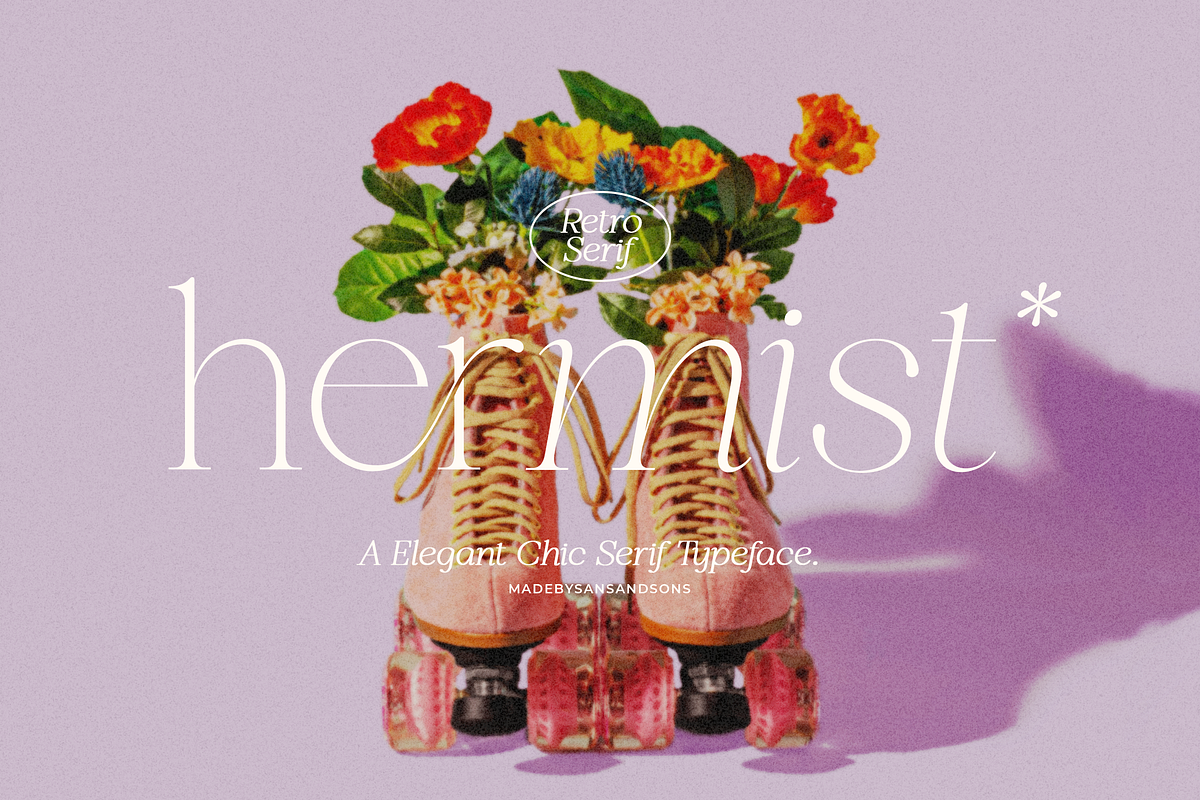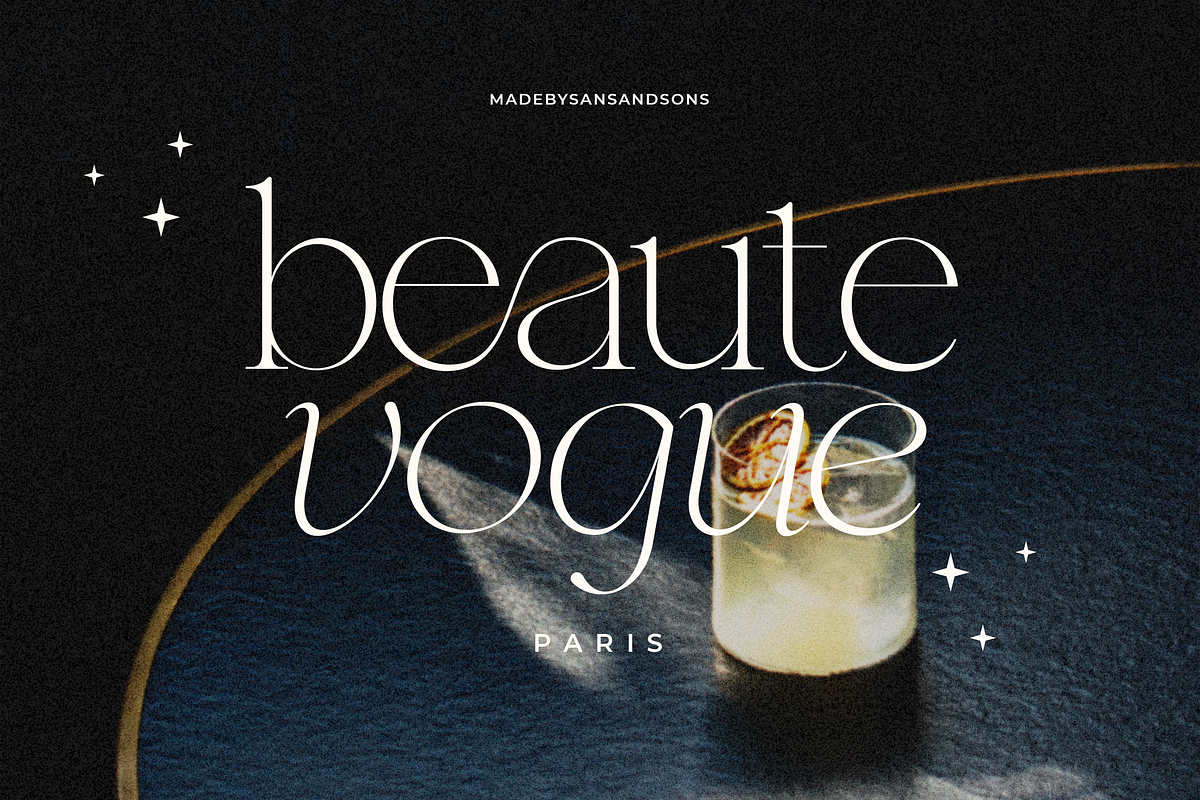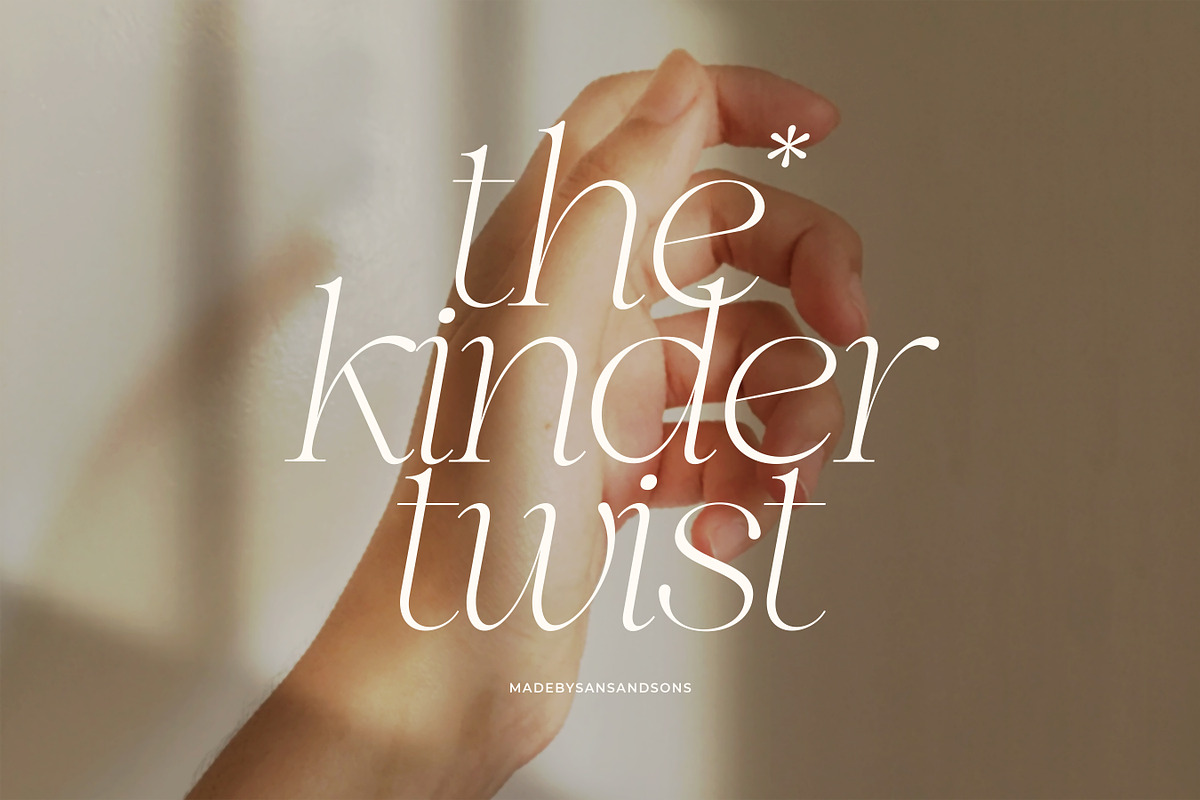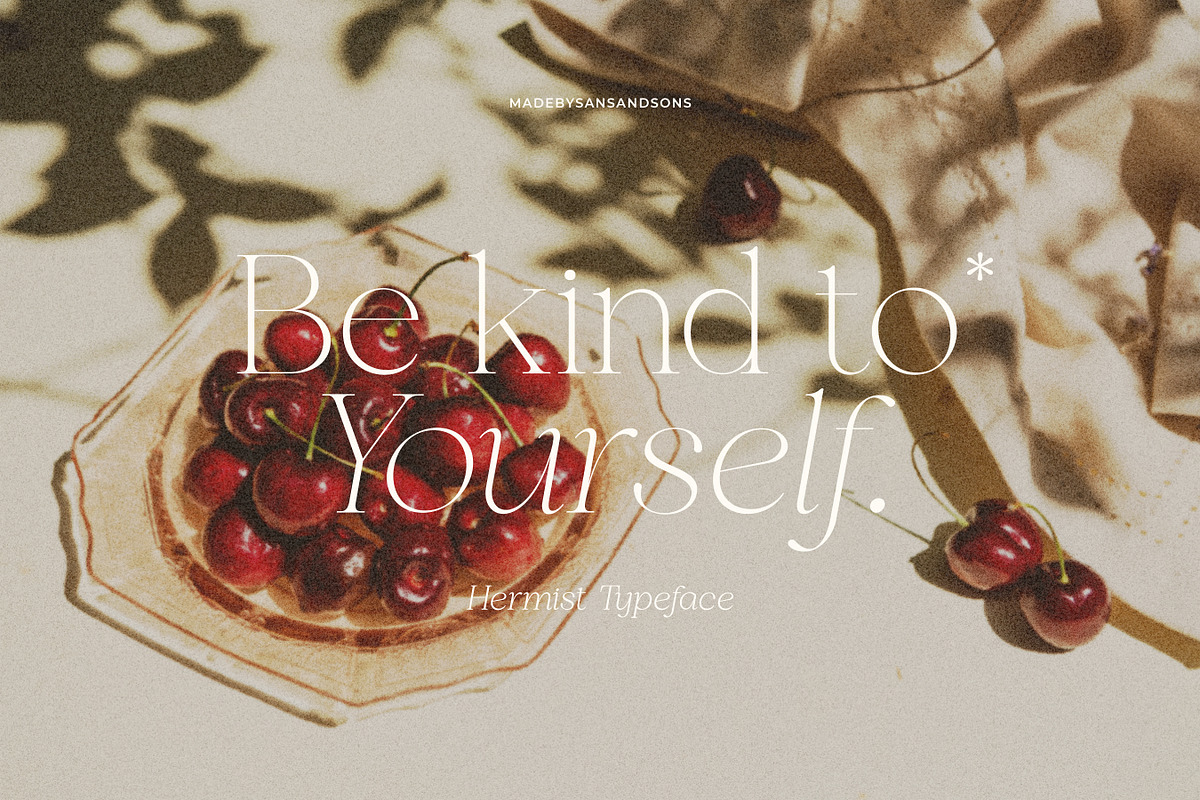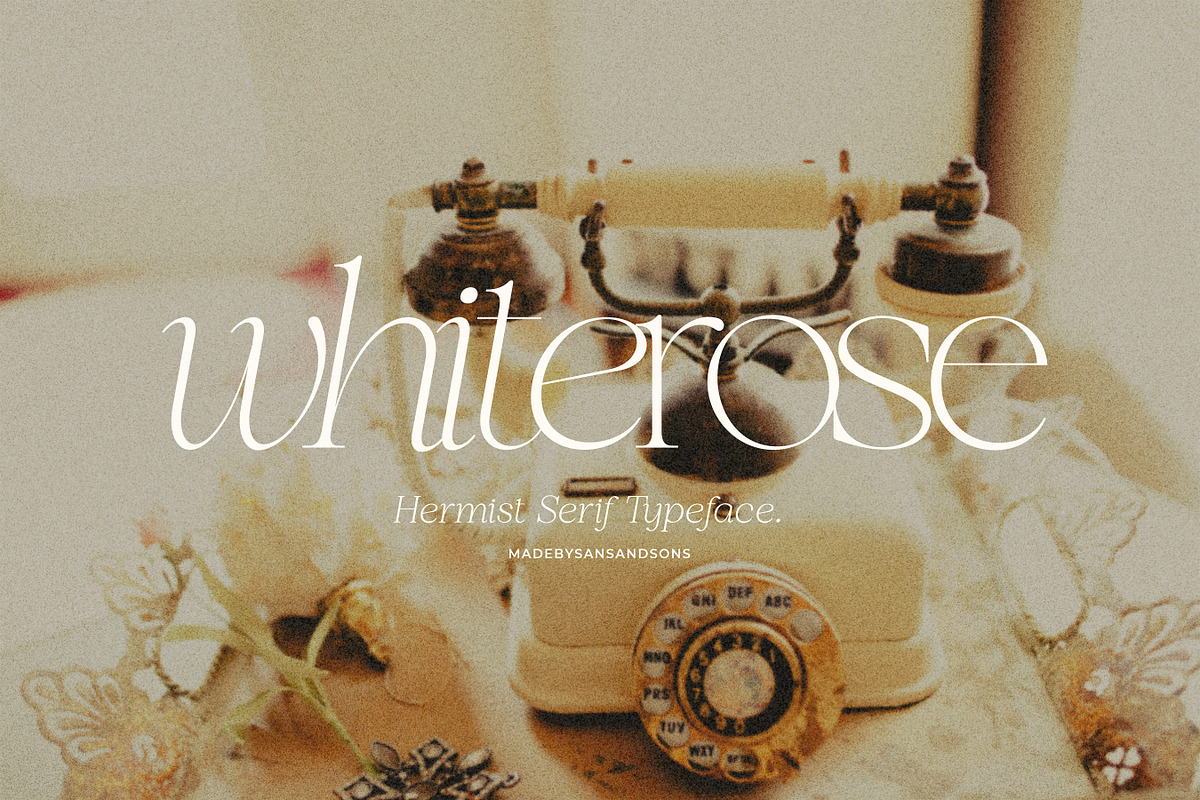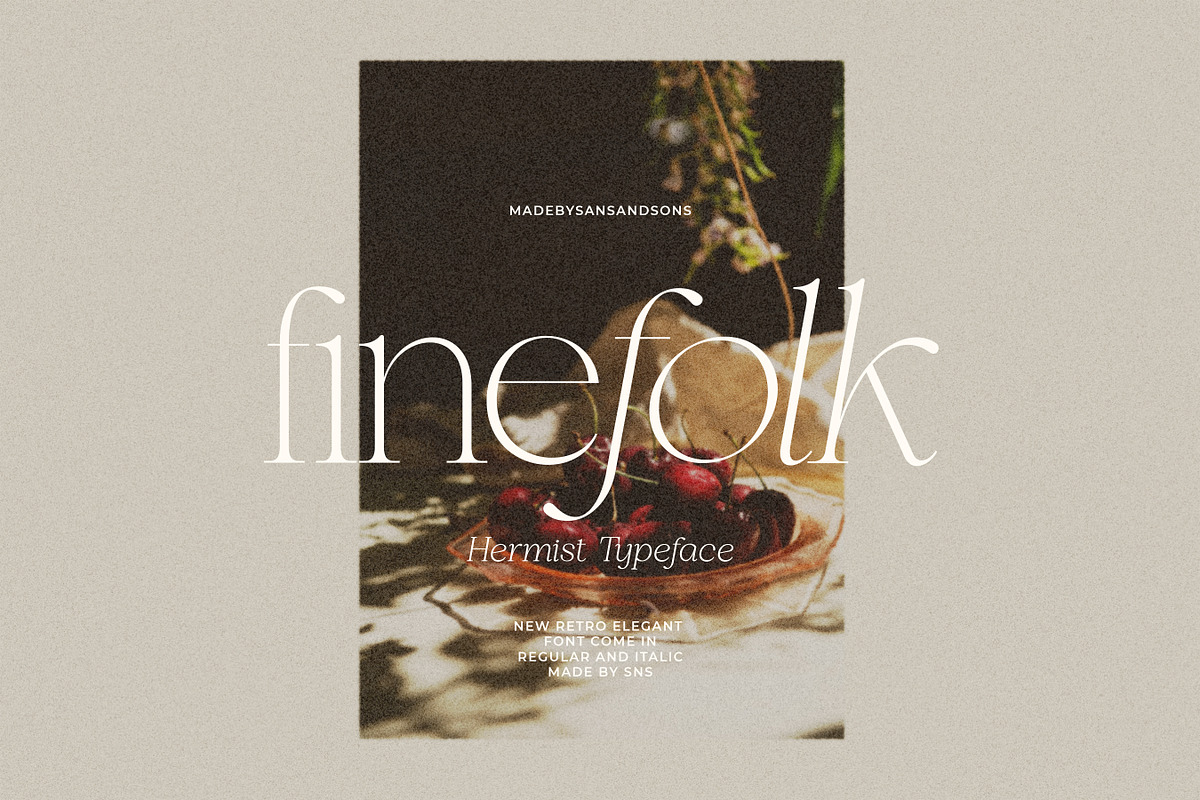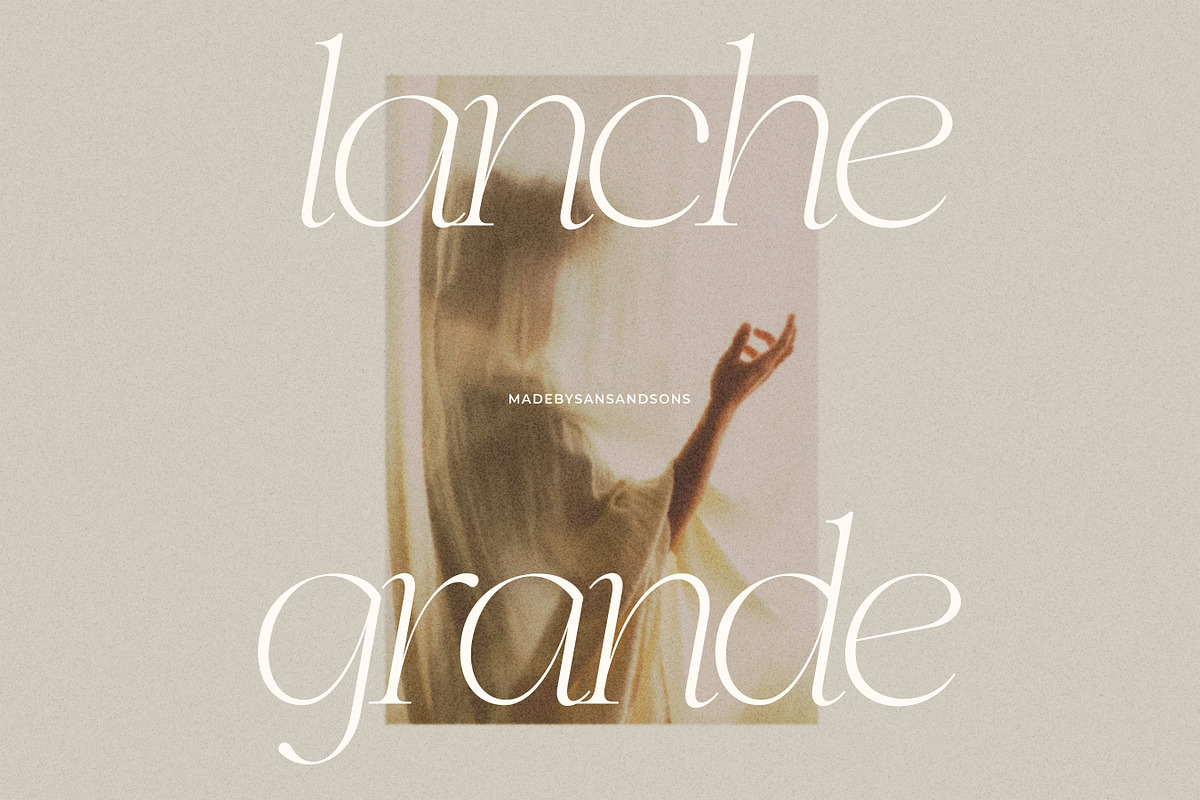
Hermist - Elegant Serif
Hermist - Elegant Serif Font by Sans and Sons
introducing our new "Hermist" Modern Ligature with Elegant Style this is perfect for branding, logos, invitation, masterheads and more.
Hermist Features :
- Multilanguange
- Available in Italic